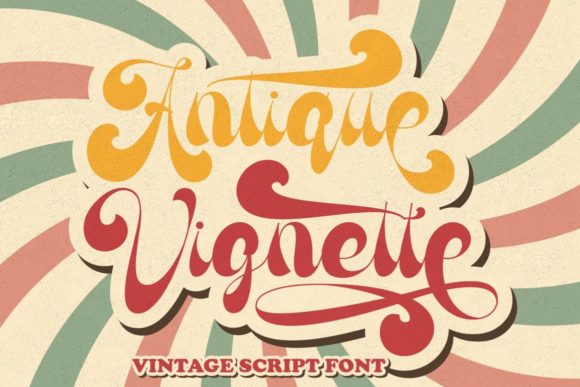
Step into a world of classic elegance and vintage charm with Antique Vignette, a captivating script font that exudes timeless beauty. Crafted with the utmost care and attention to detail, this font is a true gem that will elevate your creative projects to new heights. Let the whimsical curves and unique letterforms of Antique Vignette take you on a journey through time, infusing your designs with a sense of nostalgia and sophistication.
With its timeless appeal, Antique Vignette is the perfect choice for designers, crafters, and creatives of all kinds. Whether you're creating logos, branding materials, lettering, or eye-catching graphics, this versatile font will effortlessly add a touch of vintage flair to your work. Its carefully crafted ligatures and alternates provide endless opportunities for customization, allowing you to express your unique style and creativity.
Imagine your designs adorned with the graceful strokes of Antique Vignette, captivating your audience with its enchanting aura. From elegant wedding invitations and retro-inspired posters to bold t-shirt designs and eye-catching marketing materials, the possibilities are truly limitless. Unleash your creativity and let Antique Vignette guide you on a creative adventure that will leave a lasting impression on all who see your work.